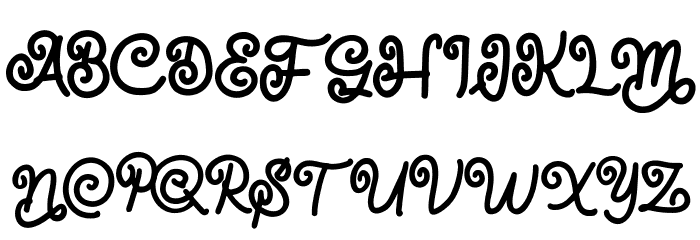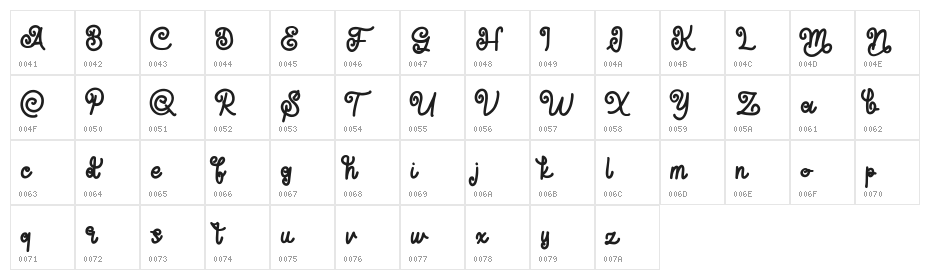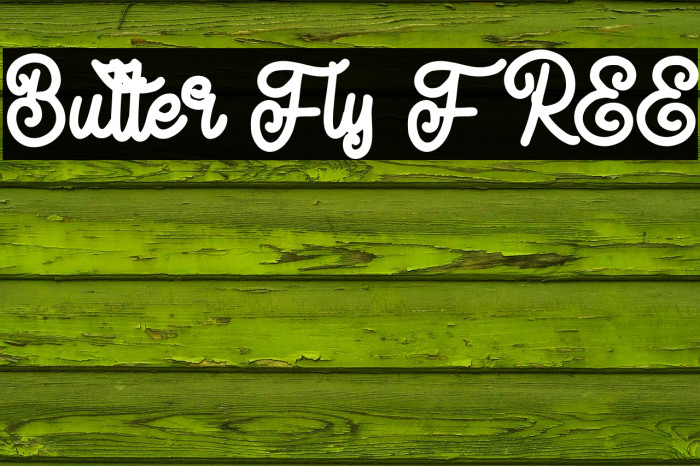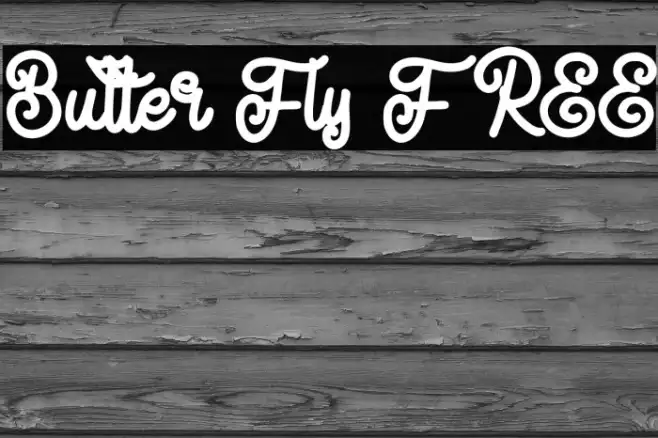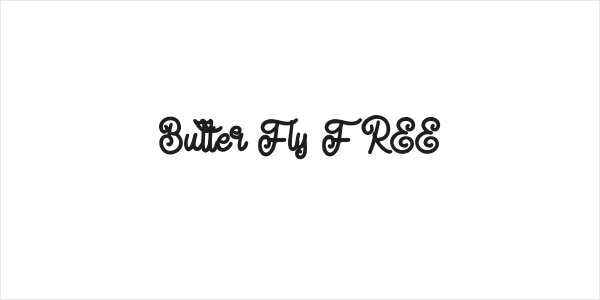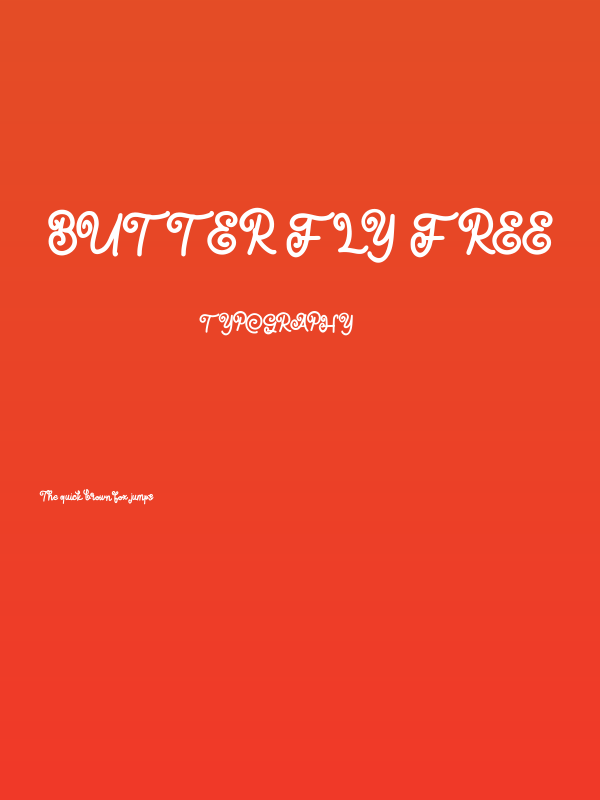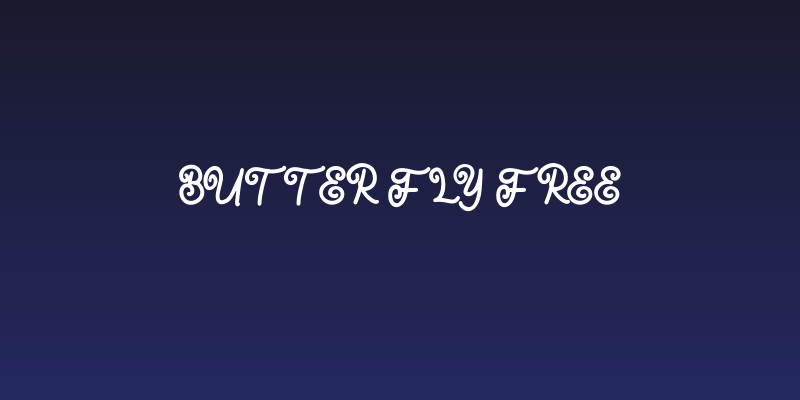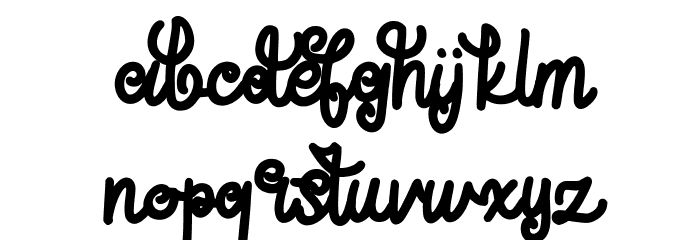
Butter Fly FREE Font
Butter Fly FREE Description
This font features a whimsical and decorative style with intricate loops and curls that give it a playful and artistic appearance. The characters are bold and have a consistent thickness, creating a strong visual impact. The uppercase and lowercase letters maintain a cohesive design, with each character exhibiting unique flourishes that add to the overall charm. The numbers and special characters are designed to match the ornate style, making this font suitable for creative and expressive projects. Its distinctiveness makes it stand out, perfect for capturing attention in various design contexts.
| Proposed Projects | Ideal for greeting cards, invitations, posters, and branding materials that require a playful and artistic touch. |